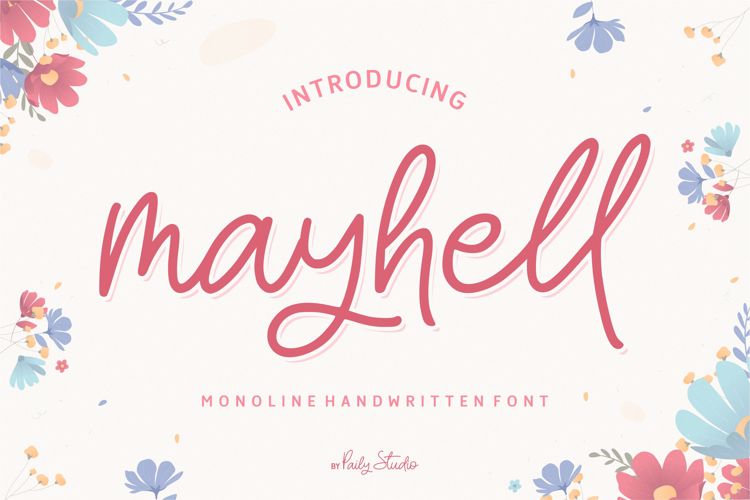
mayhell Font
Introducing mayhell is a Monoline Handwritten Font.
Mayhell can be used for wide ranges of application, such as wedding design, branding project, logo, poster, name card, invitations, social media posts, and others.
Feature Ligature and Alternates.